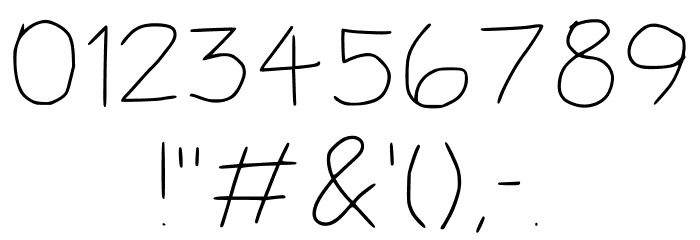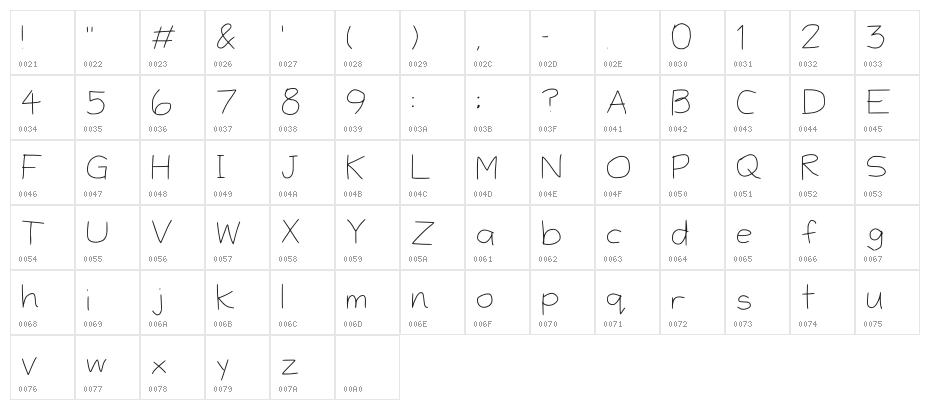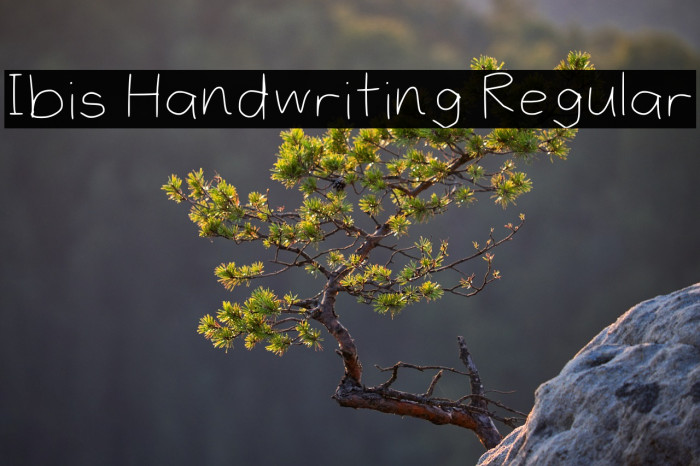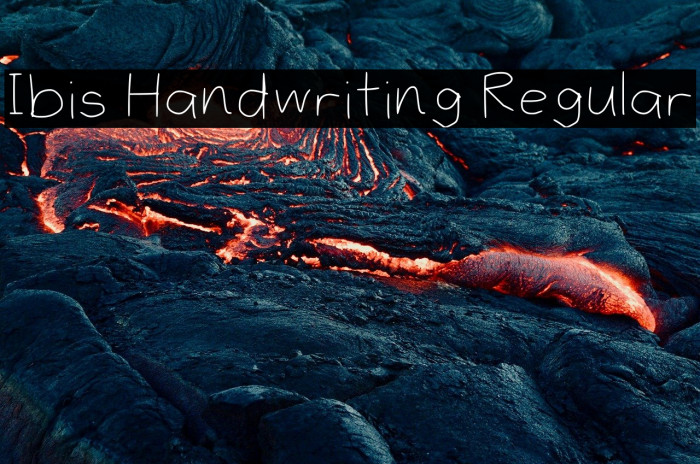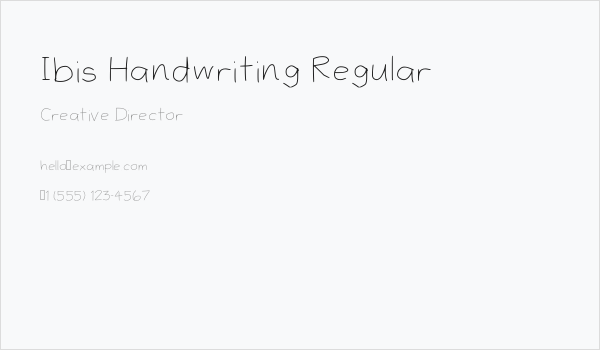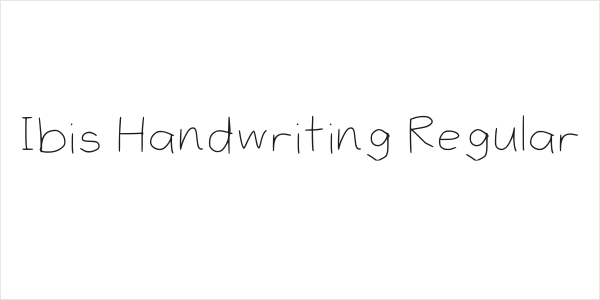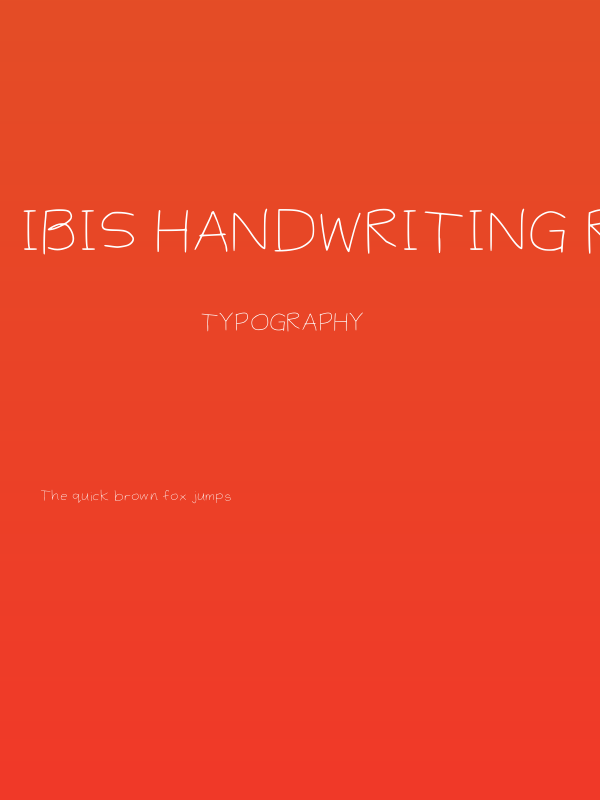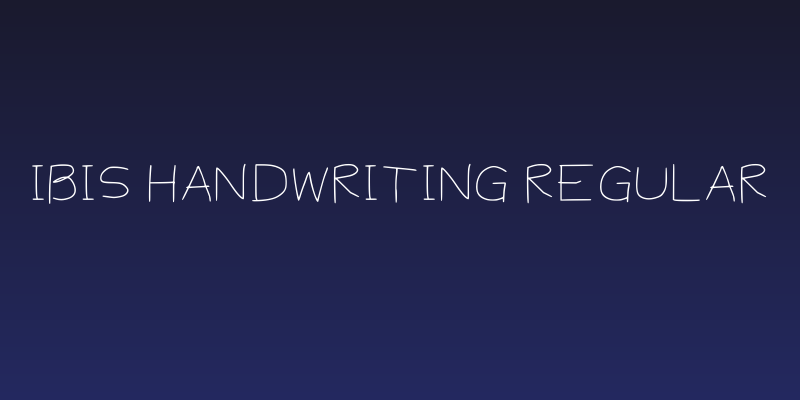
Ibis Handwriting Regular Font
Ibis Handwriting Regular Description
This font features a casual, handwritten style that mimics natural penmanship. The letters are slightly irregular, giving it an authentic and personal touch. The strokes are consistent in thickness, creating a harmonious and balanced appearance. The uppercase and lowercase letters are well-proportioned, and the numerals are clear and legible. Special characters are included, maintaining the same handwritten aesthetic. This font is perfect for projects that require a personal, informal, and approachable feel.
Overall StyleCasual
Use CaseInvitations, Greeting cards, Personal letters
Proposed ProjectsIdeal for personal letters, invitations, greeting cards, and creative projects that require a handwritten look.